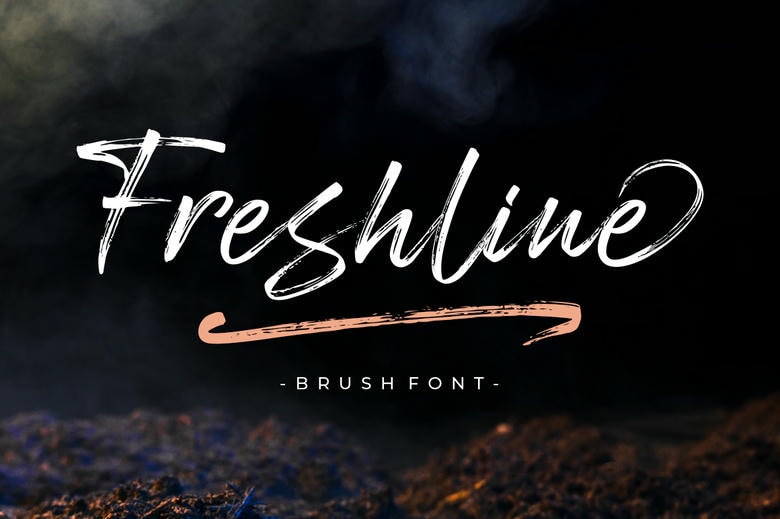
Freshline Font
Freshline is a textured brush font with a modern look and a handmade, uneven baseline. It works well for titles, invitations, book covers, stationery, quotes, branding, logos, greeting cards, packaging, posters, and more.
Freshline comes with uppercase and lowercase letters, supports multiple languages, and includes numbers, punctuation, ligatures, alternates, and extra swashes.
Freshline Brush Font